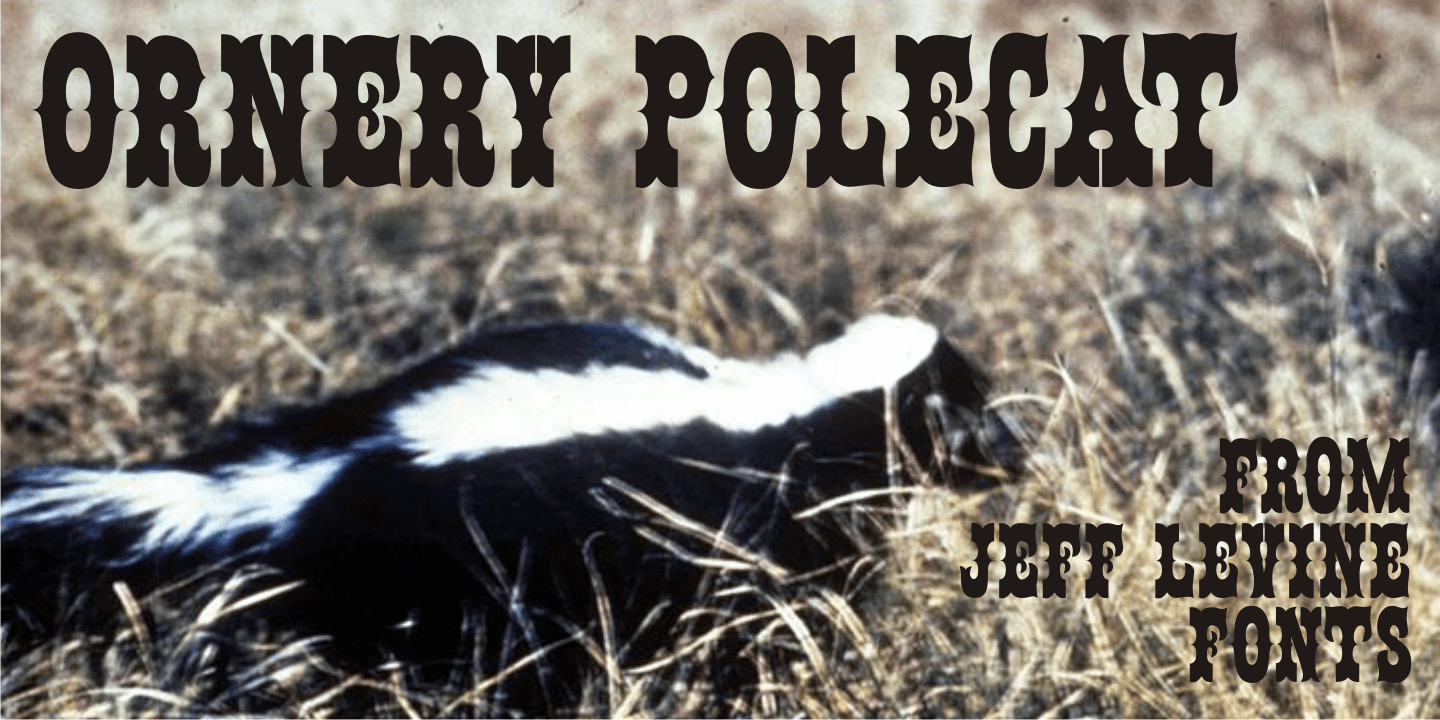
Ornery Polecat
In January of 2006, Jeff Levine fonts debuted with ten releases. Many of those first fonts were based on vintage lettering stencils, which were the 'school years” catalyst for Jeff's interest in lettering and type design.
Eight years later, his collection of fonts has become a giant catalog of display type ranging from Wood Type revivals to Art Nouveau, Art Deco to stencil, reinterpretations of old favorites, experimental fonts, dingbat fonts and typefaces reflecting a particular decade's styles of cultural popularity. Designs from old lettering books, type catalogs and advertising have also been fodder for many alphabets not previously available in a digital format.
Along the way, many unusual lettering sources were also mined for type ideas. Vintage packaging, hand-lettered signage, sign making kits, rubber stamp type, water applied decals and at times just a singular letter example inspired many of the releases within this collection.
It was a source of pride for Jeff Levine Fonts to reach 500 releases and a determined goal to grow the type library as far as possible. With this in mind, February 2014 brings forth many new releases. This one in particular, Ornery Polecat JNL, is the 800th typeface release from Jeff.